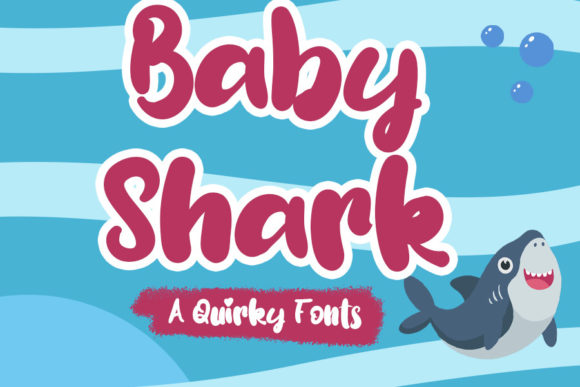
Baby Shark Font: Add a Quirk of Fun to Your Designs
Baby Shark Font is a playful and charming display font that’s perfect for designers and crafters looking to add a touch of whimsy to their creations. Inspired by the popular children’s song and animation, this font is sure to bring a smile to anyone’s face. Whether you’re working on cartoon-related designs, children’s games, or any project that requires a dash of fun, Baby Shark Font is an excellent choice.
What Makes Baby Shark Font So Special?
Baby Shark Font is a quirky and fun display font that’s designed to capture the playful spirit of the beloved children’s character. Its unique and irregular shape makes it stand out from more traditional fonts, adding a touch of personality to any design. The font’s bold and rounded letters are perfect for creating eye-catching headings, titles, and text elements that are sure to grab attention.
Perfect for Cartoon-Related Designs
If you’re a designer working on cartoon-related projects, Baby Shark Font is a fantastic addition to your font library. The font’s playful and childlike feel makes it an ideal match for designs featuring cartoon characters, animations, or comics. Use it to create fun and engaging titles, captions, or dialogue bubbles that will bring your characters to life.
Great for Children’s Games and Education
Baby Shark Font is also an excellent choice for designers and educators working on children’s games, educational materials, and activities. The font’s friendly and approachable feel makes it perfect for creating engaging and interactive content that kids will love. Use it to design fun and colorful worksheets, activity sheets, or game titles that will make learning a joyful experience.
Adding a Lovely Touch to Any Design
But Baby Shark Font isn’t just limited to cartoon-related designs or children’s projects. Its playful and charming feel makes it a great addition to any design that requires a touch of whimsy and personality. Use it to create eye-catching posters, flyers, or brochures that will stand out from the crowd. Add a dash of fun to your social media graphics, or use it to create engaging and interactive content for your website or blog.
Key Features of Baby Shark Font
• Quirky and fun display font: Perfect for adding a touch of personality to your designs
• Unique and irregular shape: Makes it stand out from more traditional fonts
• Bold and rounded letters: Perfect for creating eye-catching headings and titles
• Playful and childlike feel: Makes it ideal for cartoon-related designs, children’s games, and educational materials
Tips for Using Baby Shark Font
• Use it sparingly: Baby Shark Font is a bold and attention-grabbing font, so use it sparingly to avoid overwhelming your design
• Pair it with complementary fonts: Pair Baby Shark Font with more traditional fonts to create a fun and engaging contrast
• Experiment with colors: Baby Shark Font looks great in bright and bold colors, so don’t be afraid to experiment and find the perfect hue for your design
Baby Shark Font is a quirky and fun display font that’s perfect for designers and crafters looking to add a touch of whimsy to their creations. Its unique and irregular shape, bold and rounded letters, and playful and childlike feel make it an excellent choice for cartoon-related designs, children’s games, and educational materials. With its versatility and charm, Baby Shark Font is sure to become a favorite in your font library.